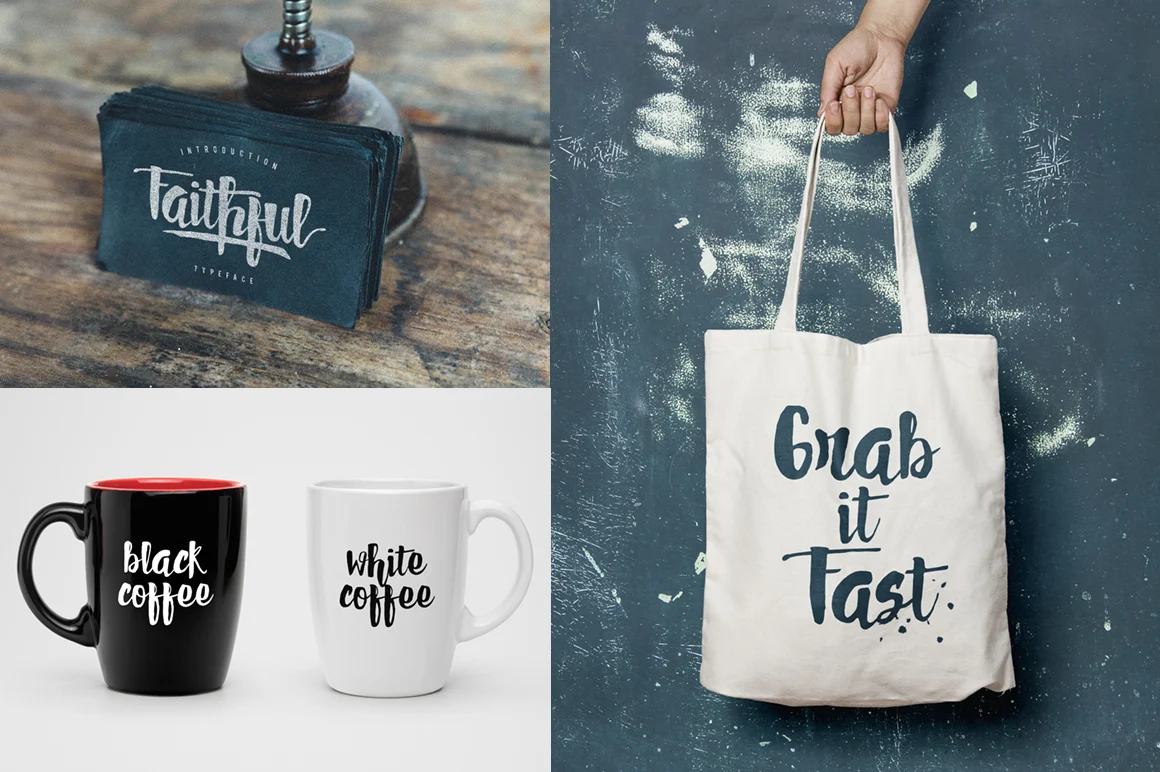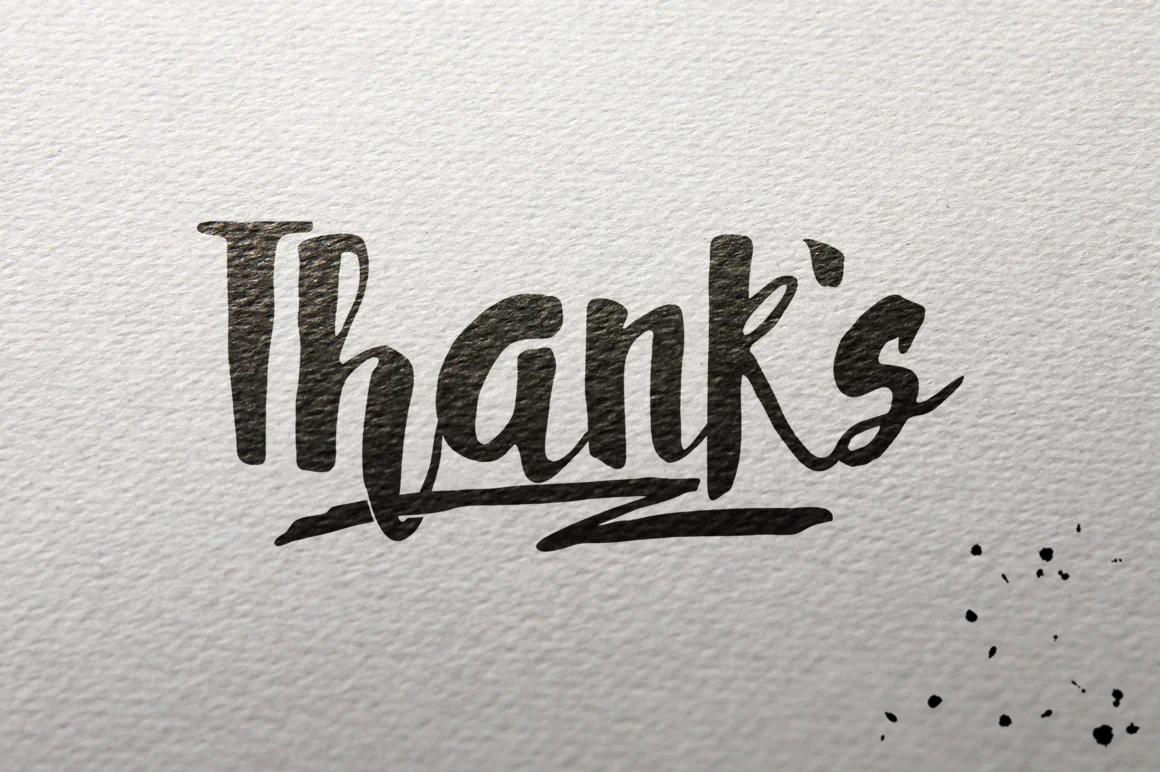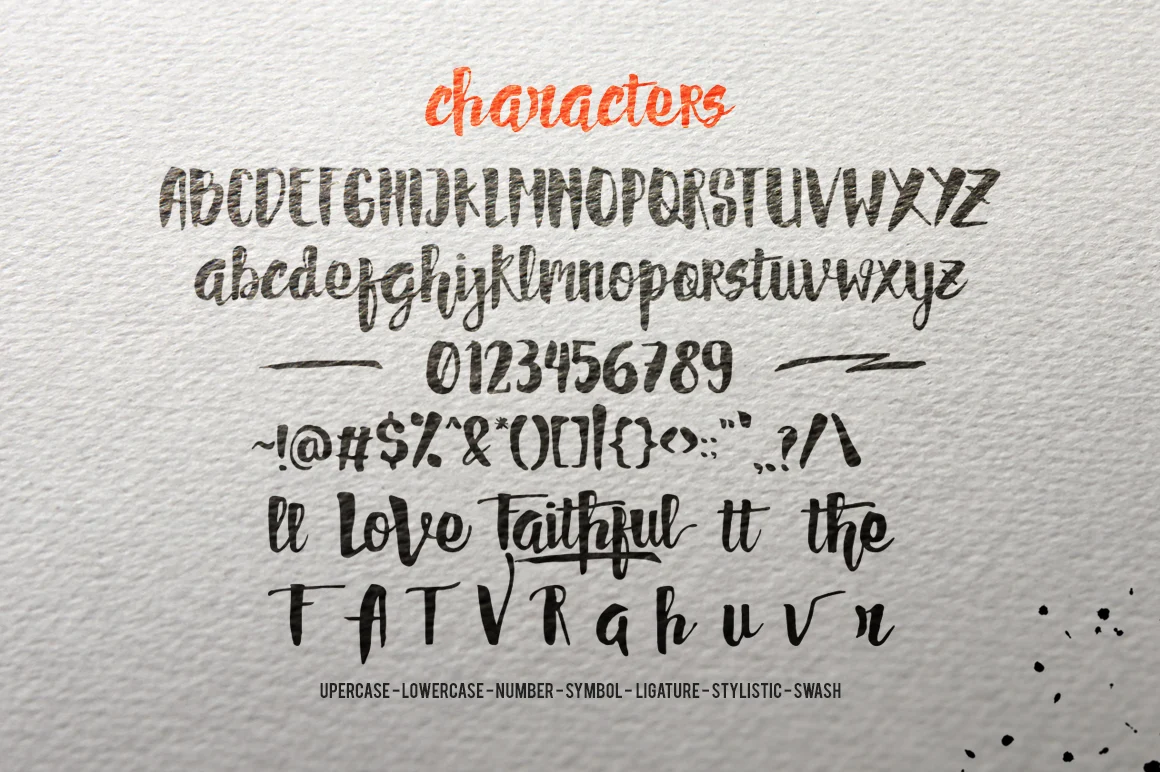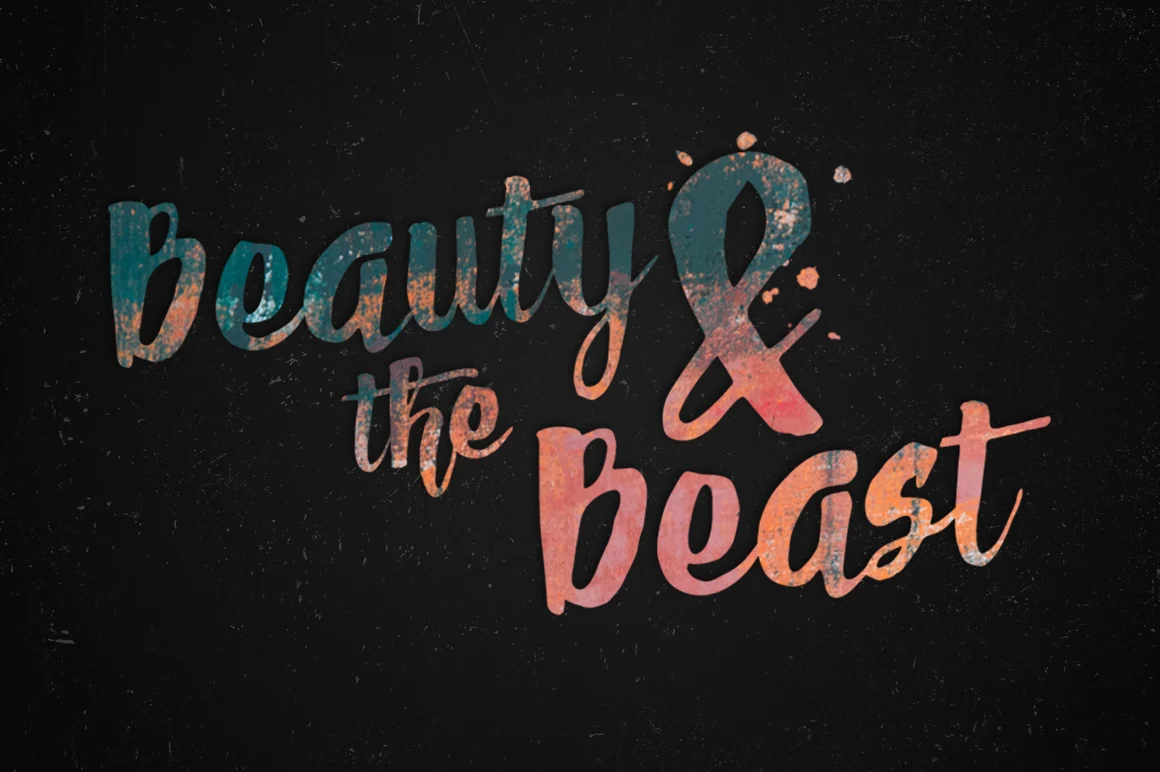
Hello... hopefully FAITHFUL Typeface can make it easier to convey the message in your design. Use for awesome display, labeling, clothing, movie sceen, party poster, movie title, gigs, album covers, logos, and much more.